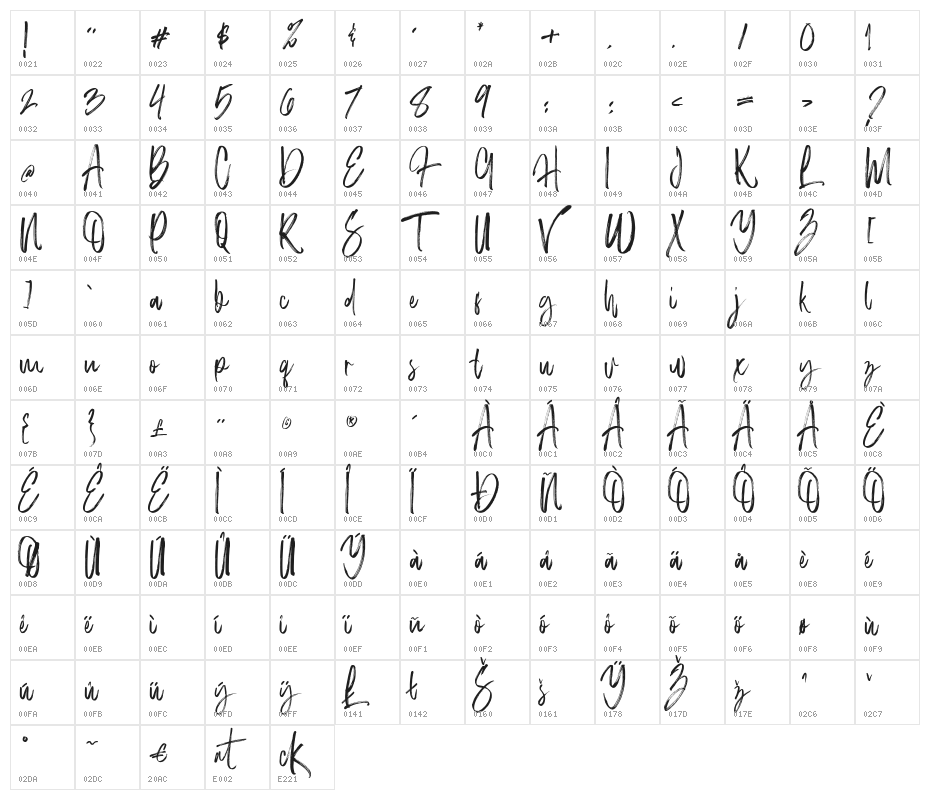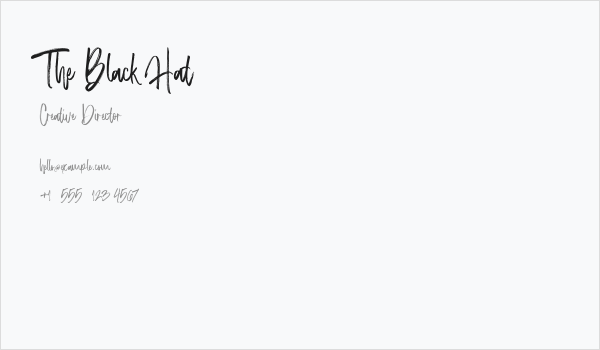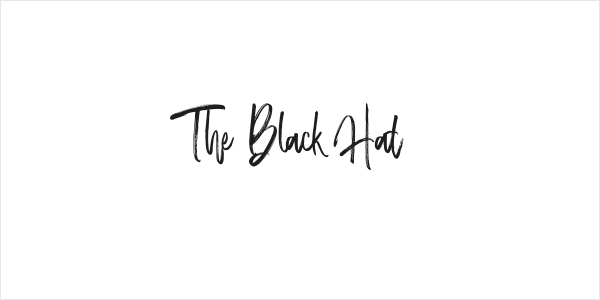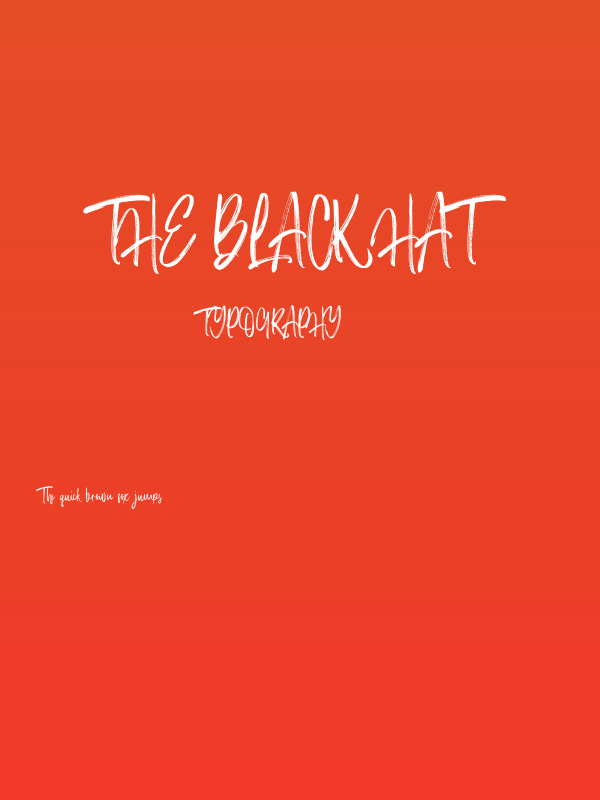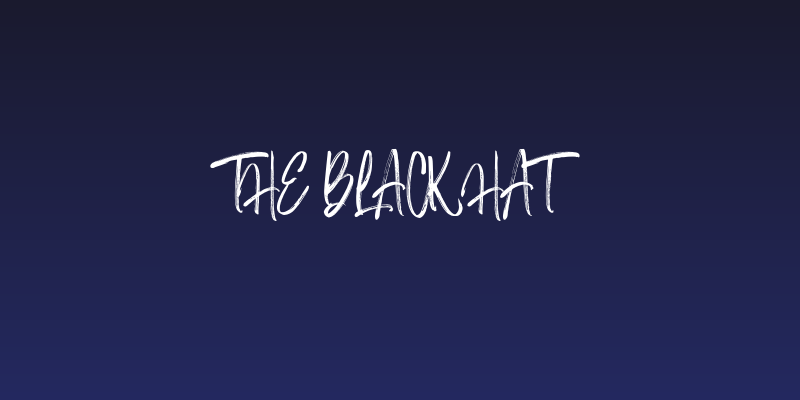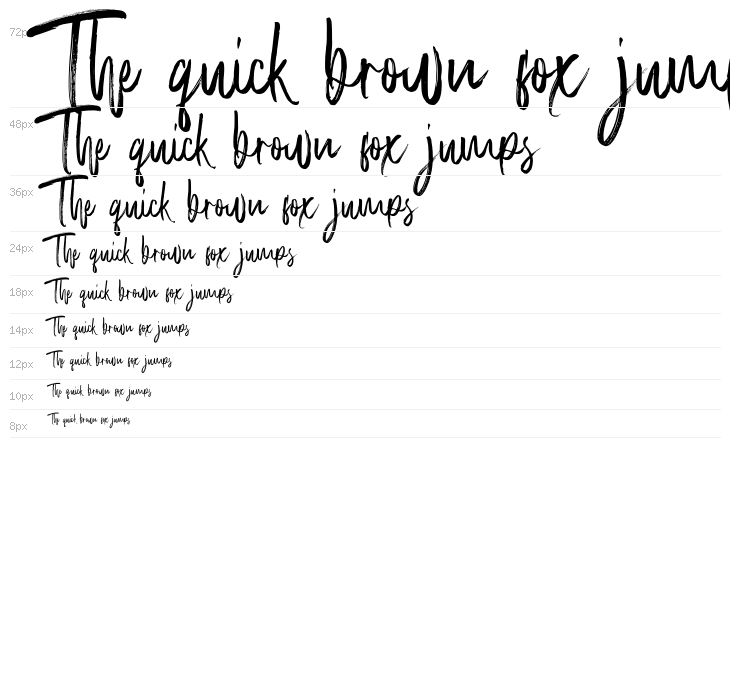
The Black Hat Font
The Black Hat Description
This font features a dynamic, brush-like script style that exudes energy and creativity. The letters are characterized by their fluid, sweeping strokes and varying thickness, giving a hand-painted appearance. The uppercase letters are bold and expressive, while the lowercase letters maintain a consistent flow, enhancing readability. The numerals and special characters follow the same artistic style, ensuring a cohesive look across all text elements. This font's unique style makes it stand out, perfect for projects that require a personal touch or artistic flair.
| Proposed Projects | Ideal for branding, invitations, posters, and any design requiring a personal, artistic touch. |